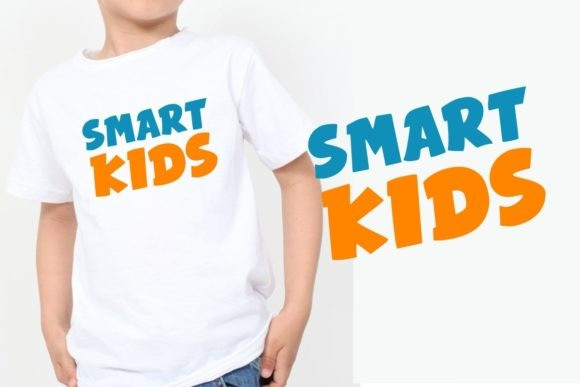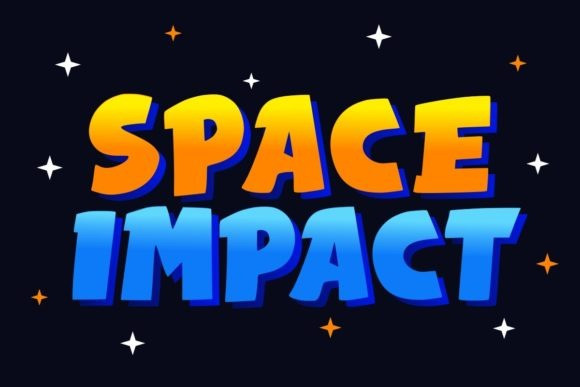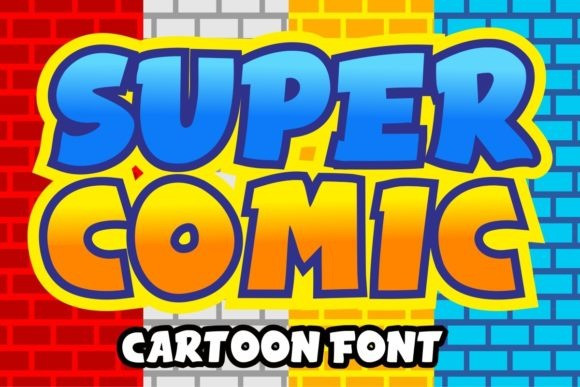
Super Comic Typeface
Super Comic Display Font is a childish, easy-to-read display font that conveys impeccable friendliness. Whether you’re using it for crafts, digital design, presentations, or making greeting cards, this font has the potential to become your favorite go-to font, no matter the occasion!